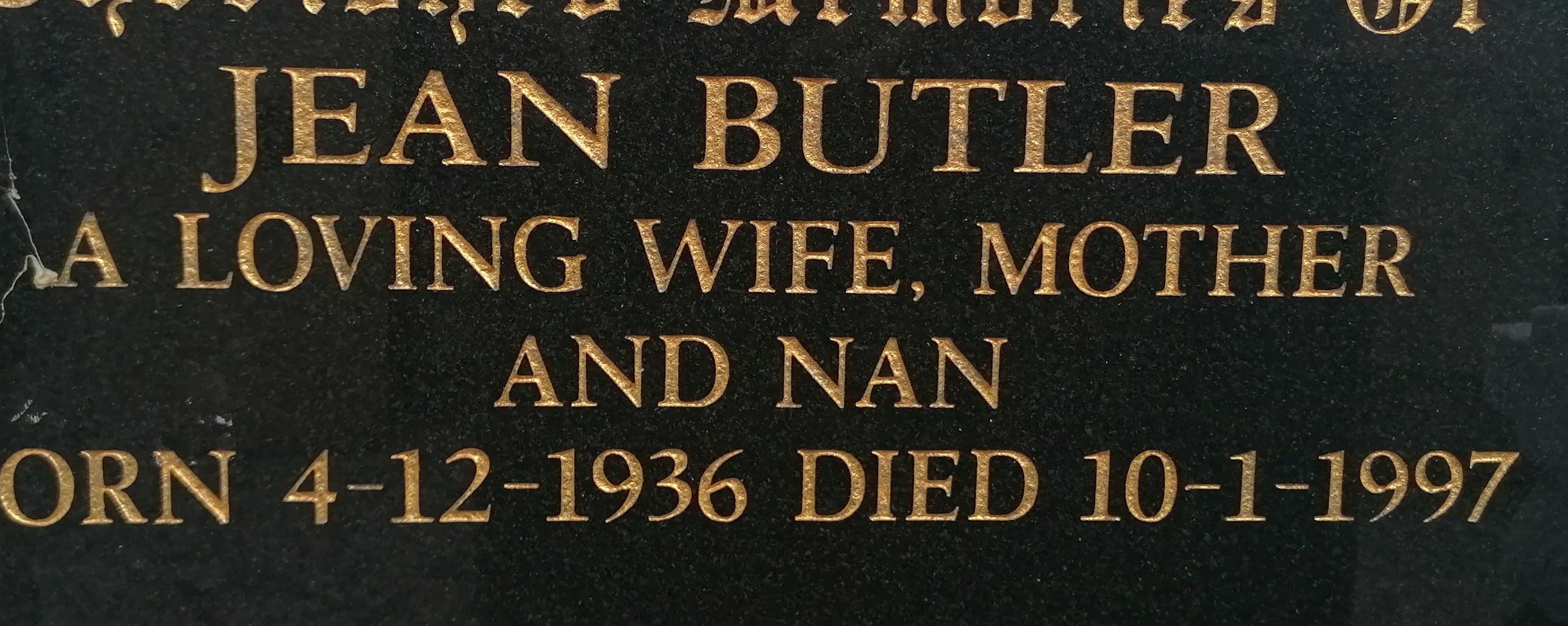
please help with this font
I wondered if anyone could help with this font I’m having trouble finding…
it’s similar to Apollo and Mysl but it has Garamond and Meridien like setups; the top of the capital T doesn’t have, erm, little ‘horns’ at the top like Garamond does although both the serifs point towards one way like Mysl and A do; the capital J hangs down; the number 4 doesn’t have the serifs at the bottom, the numbers in general look abit like Meridien
black with gold lettering
Hello, this is a version of a font named Leiden/Leighton/Lectura Bold. However, it appears that someone has come in and connected the 9s and 6s instead of leaving them open.
This does appear to be very close to the Gerber Omega version of Lectura Bold.